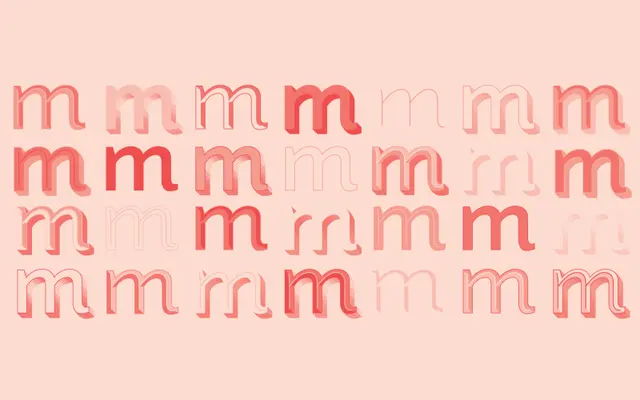
Strato
A six-style layered display sans by Sophie Brown, proportioned after classical Roman inscriptions and designed for mixing styles freely.
Six variants, Roman, Cesello, Inline, Outline, Eclisse and Tonale, each take their cue from a different texture of Rome: stone carvings, woodblock illustration and modern signage. Any combination of layers can be stacked to produce a range of decorative effects from a single underlying sans skeleton. The proportions draw from classical Roman letterforms but the overall character sits closer to contemporary display work than antiquarian revival.
A humanist sans with proportions drawn from classical Roman inscriptions, but its primary design intent is layering across six decorative variants, placing it firmly in display territory rather than conventional text use.